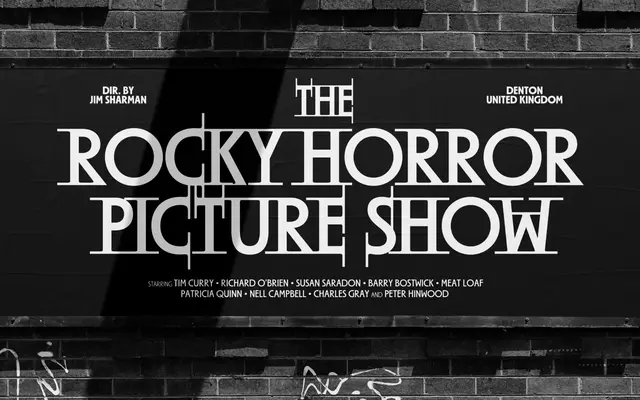
Autarchist
Zetafonts · Andrea Tartarelli, Cosimo Lorenzo Pancini · 2024
A three-subfamily display family inspired by 1970s and 80s sci-fi and horror cover typography, ranging from a clean sans to an exaggerated super serif with wild, jagged strokes.
Designed by Andrea Tartarelli and Cosimo Lorenzo Pancini, Autarchist draws on the cover lettering of pulp paperbacks and genre cinema, with ITC Serif Gothic cited as a starting point for the sans. The family extends across three distinct subfamilies — a sans, a flared serif and a super serif where the serifs grow angular and pronounced — each available in seven weights from Hairline to Extrabold. A variable font spanning both weight and serif intensity axes is included with the full family package, and the release won a Communication Arts Typeface Design award in 2025.
A stylised display family drawing on 1970s–80s sci-fi and horror cover typography, spanning a sans, a flared serif and an exaggerated super serif, making it firmly display-oriented despite its range of weights.